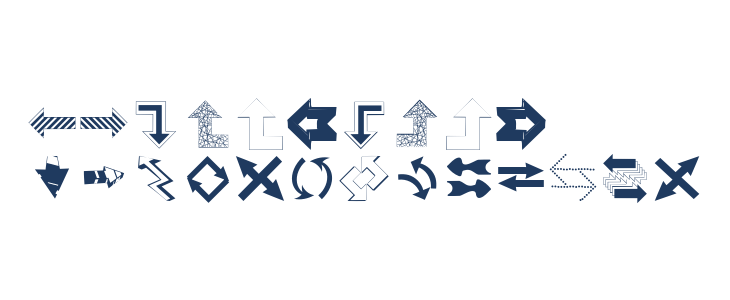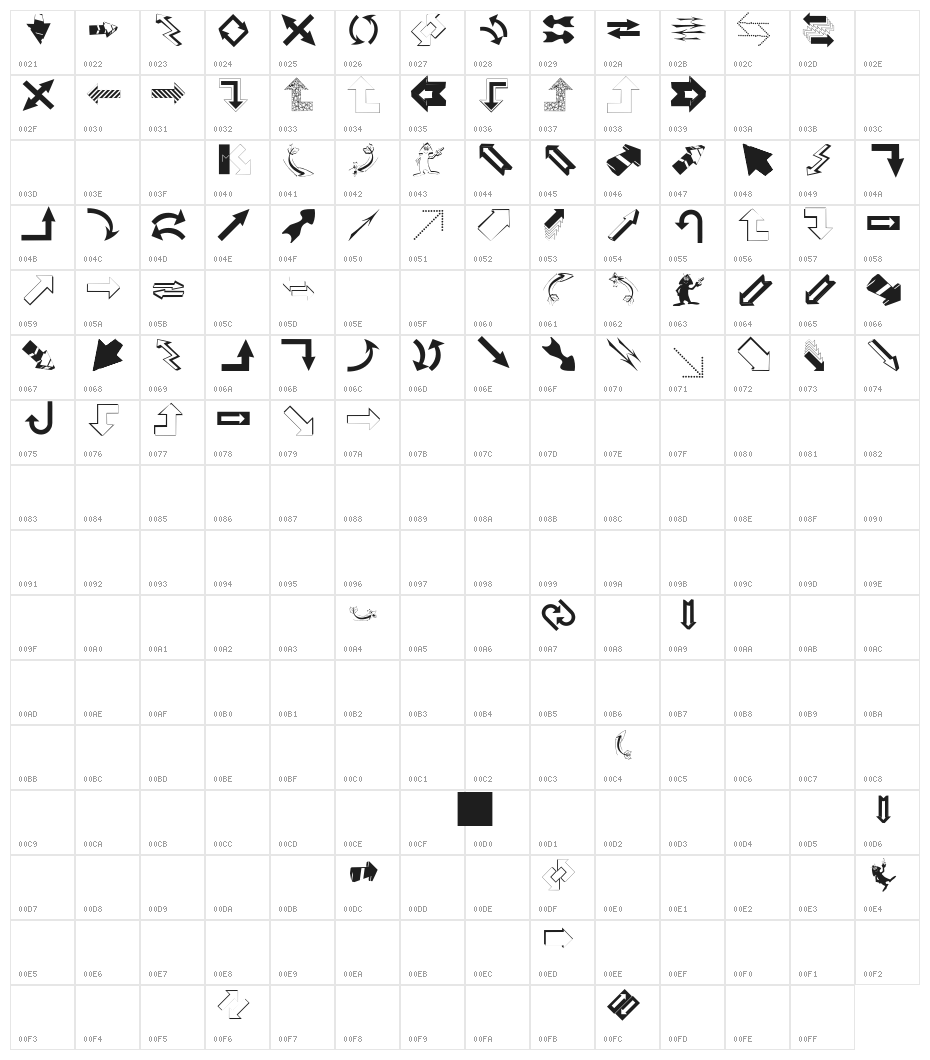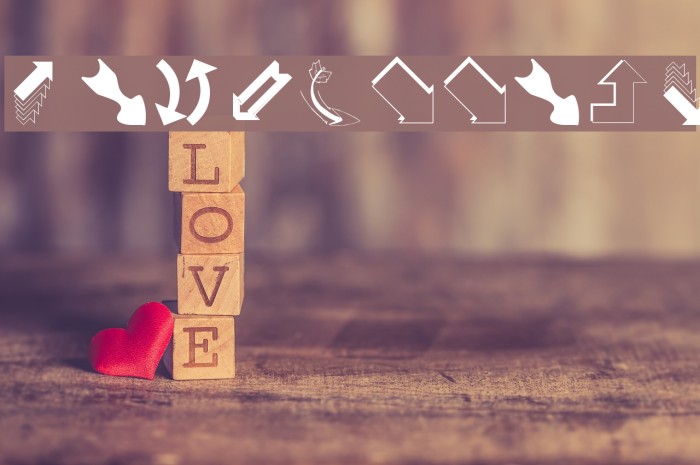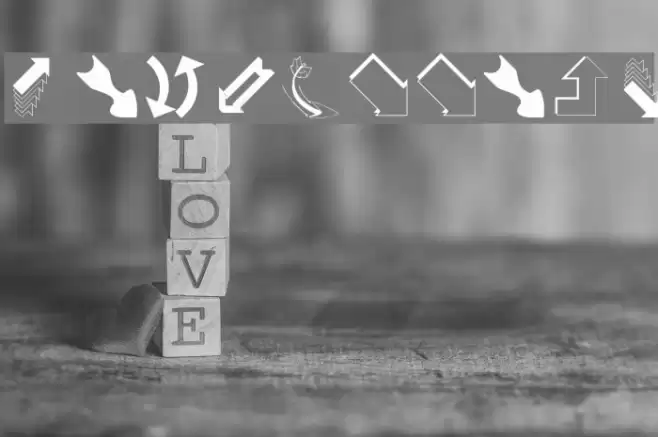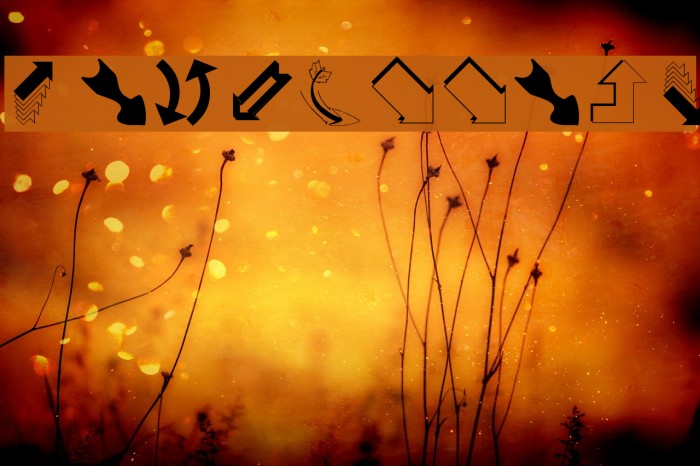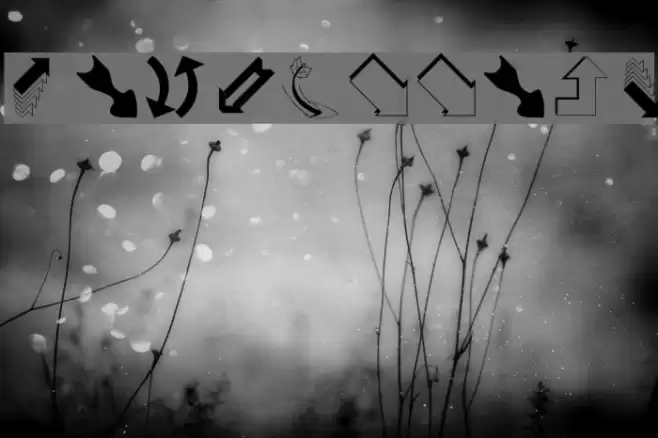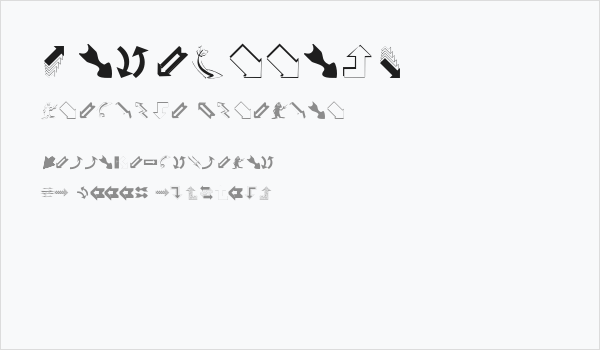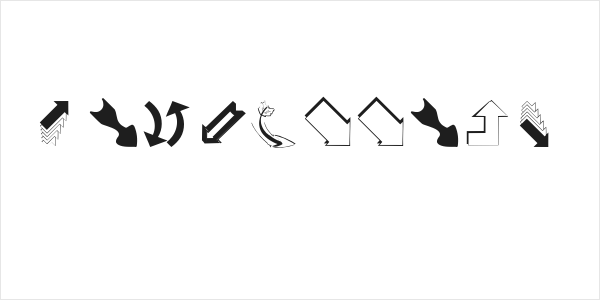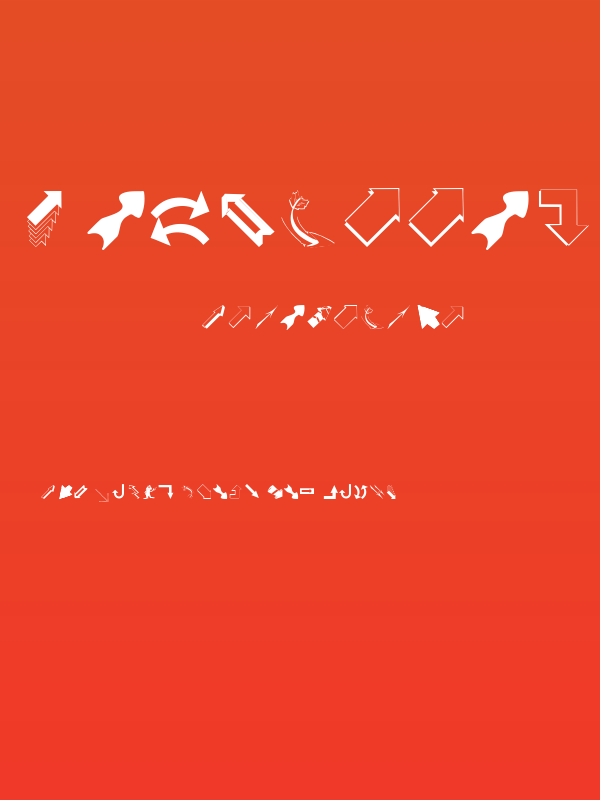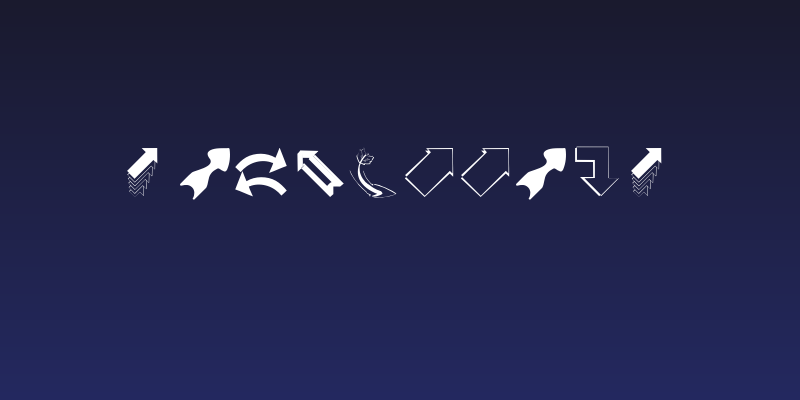
SomeArrows Font
SomeArrows Description
A highly decorative dingbat font composed entirely of various arrow designs, ranging from simple geometric arrows to complex, illustrated, and patterned forms. The glyphs include both filled and outlined styles, with some incorporating playful or cartoonish elements, making each character unique and visually engaging.
| Overall Style | Decorative, Playful, Eclectic |
| Use Case | Icons, Infographics, Decorative elements, Signage |
| Proposed Projects | Infographics, signage, instructional materials, playful posters, digital interfaces, educational resources, and creative design projects requiring diverse arrow icons. |